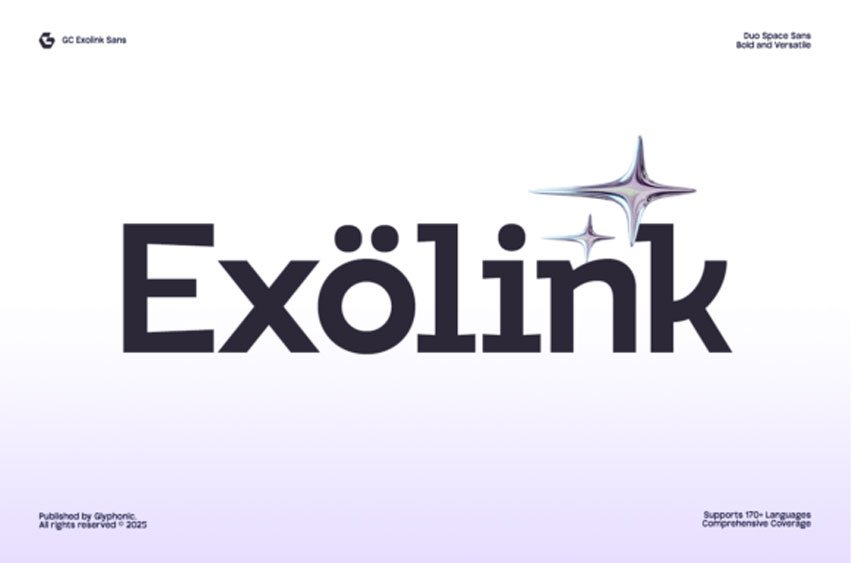
Exolink Font Infinite Boldness is a contemporary sans serif typeface designed to embody strength, clarity, and futuristic versatility. With clean geometry and assertive strokes, it projects a confident voice that adapts seamlessly across digital and print media. Crafted to balance bold expression with refined simplicity, it’s perfect for branding, editorial layouts, tech-inspired projects, and striking visual identities.
Precise detailing and balanced proportions make GC Exolink adaptable yet distinctive. Whether for sleek interfaces, commanding headlines, or minimalistic posters, this font infuses your typography with power, modernity, and timeless impact.